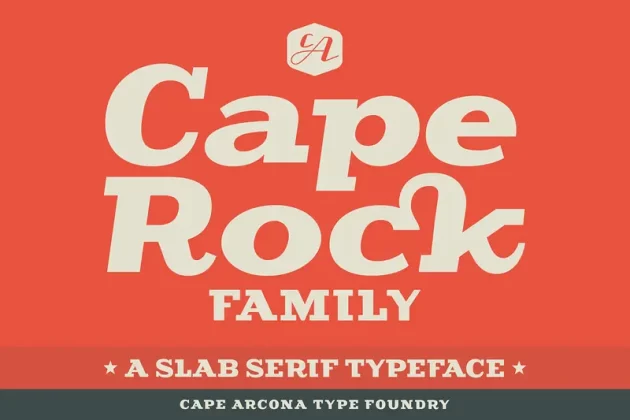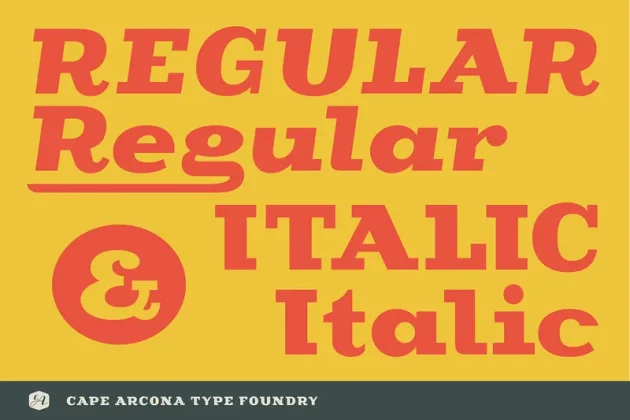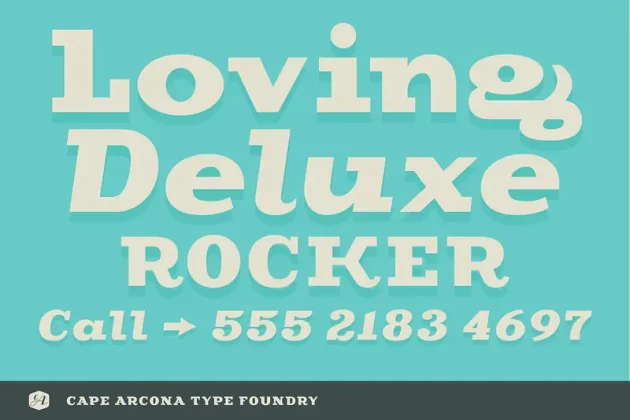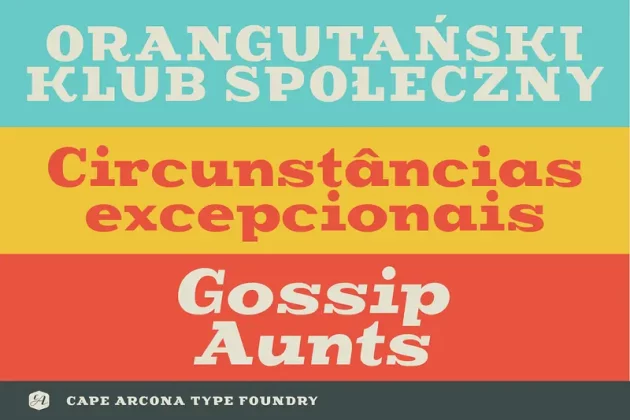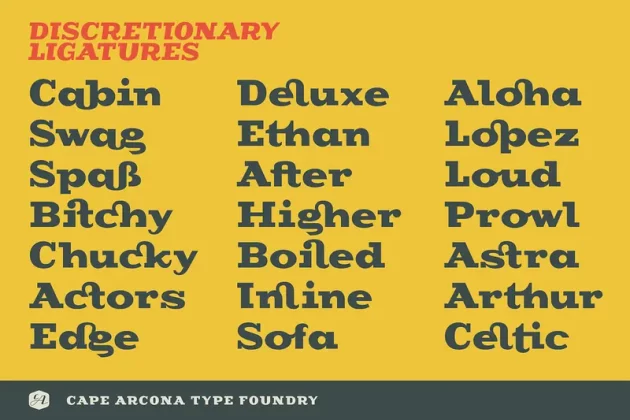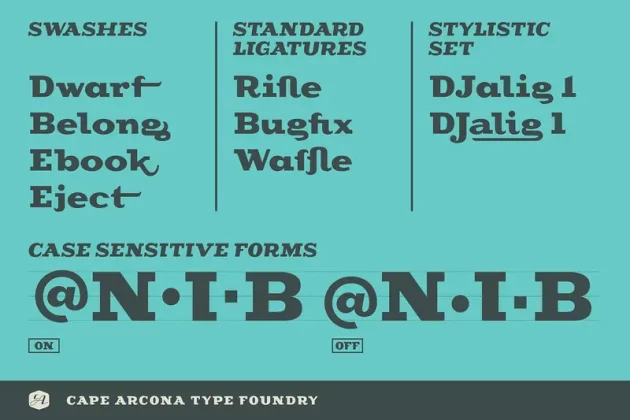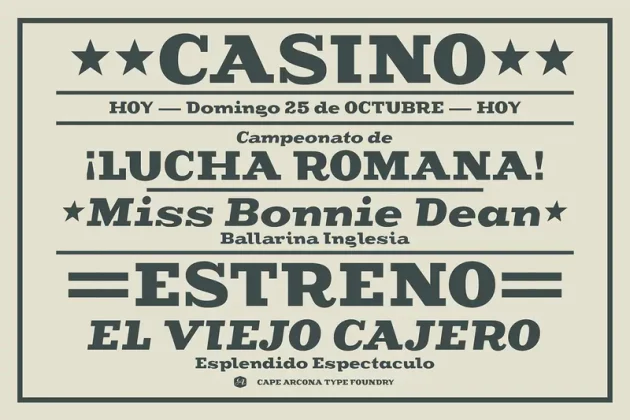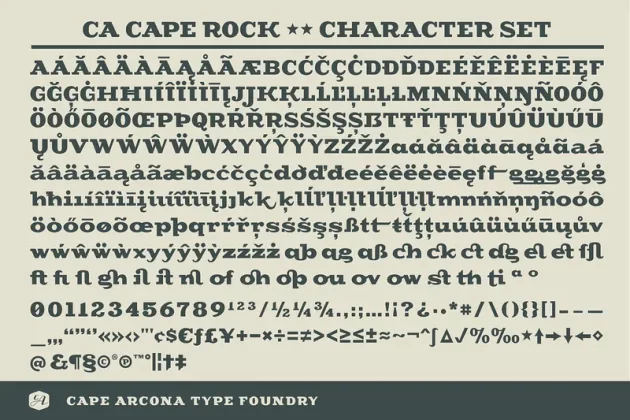
CA Cape Rock – Family Font
CA Cape Rock, first released in 2007 and now reissued and expanded, is an impressive display typeface. Designed with a fat Clarendon and wood type in mind, the typeface’s bold and distinctive forms add spice and personality to any design that requires a strong display aesthetic.
CA Cape Rock is particularly enjoyable for use in headlines and ideal for highlighted text. With already two dozen existing ligatures and many OpenType swashes, the new edition also received letters for use in the Central European and South Eastern European area. Cleaned and harmonized paths, a completely new kerning as well as a newly added Italic (Slanted) style are also among the new features.